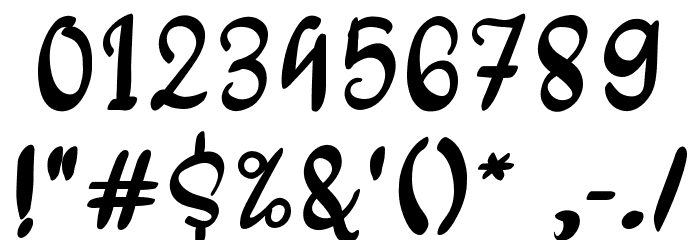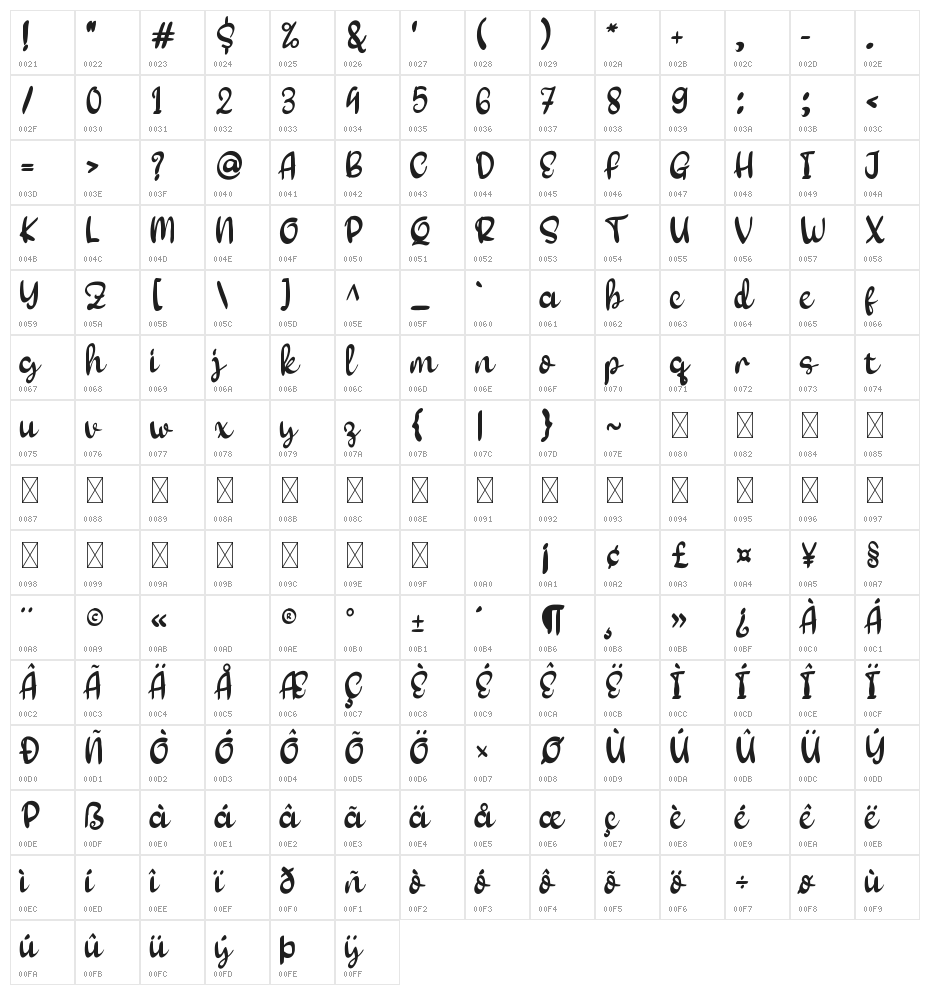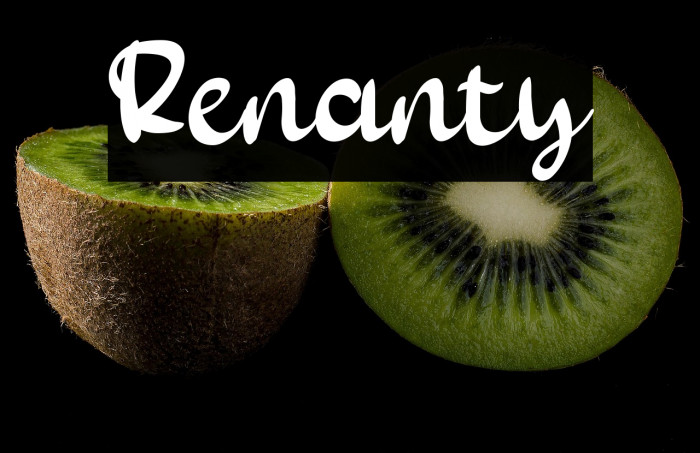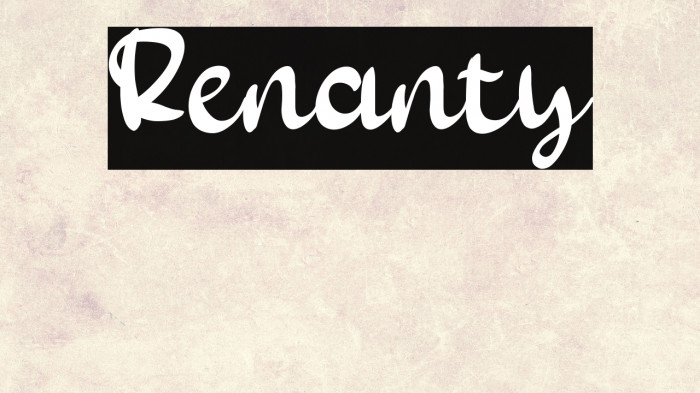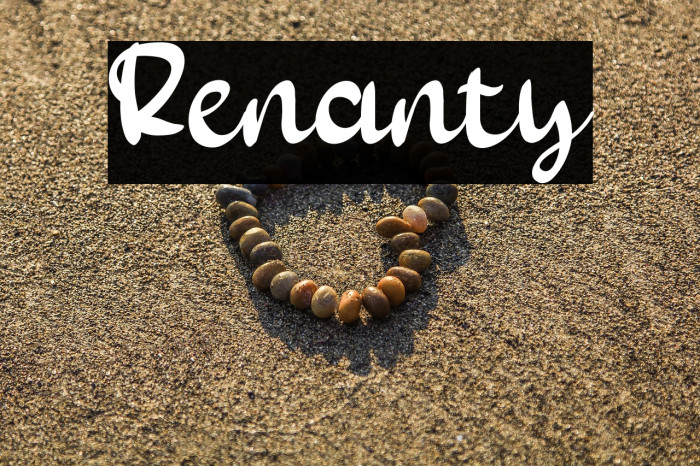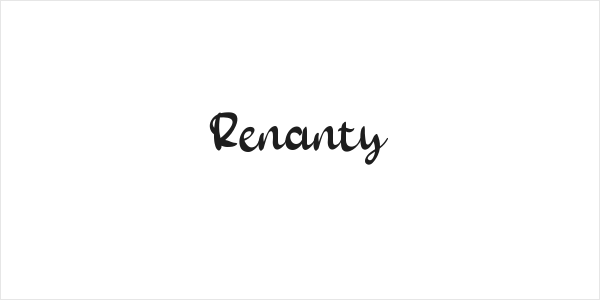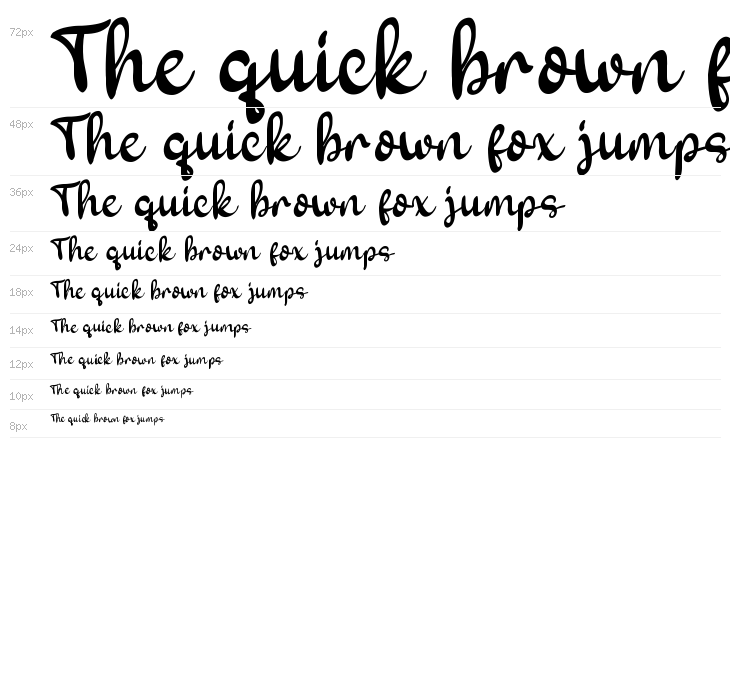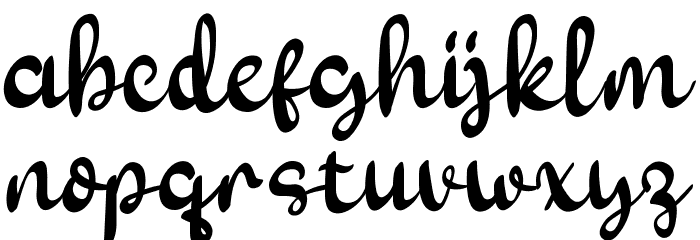
Renanty Font
Renanty Description
This font features a playful and energetic script style, characterized by its bold and flowing letterforms. The uppercase letters are slightly more structured, while the lowercase letters exhibit a more casual, handwritten appearance. The numerals are consistent with the overall style, maintaining a playful yet legible form. Special characters are integrated seamlessly, adding to the font's versatility. The strokes are thick, providing a strong visual impact, and the overall design is cohesive and lively, making it suitable for a variety of creative applications.
| Proposed Projects | Ideal for greeting cards, playful branding, children's book covers, and creative posters. |